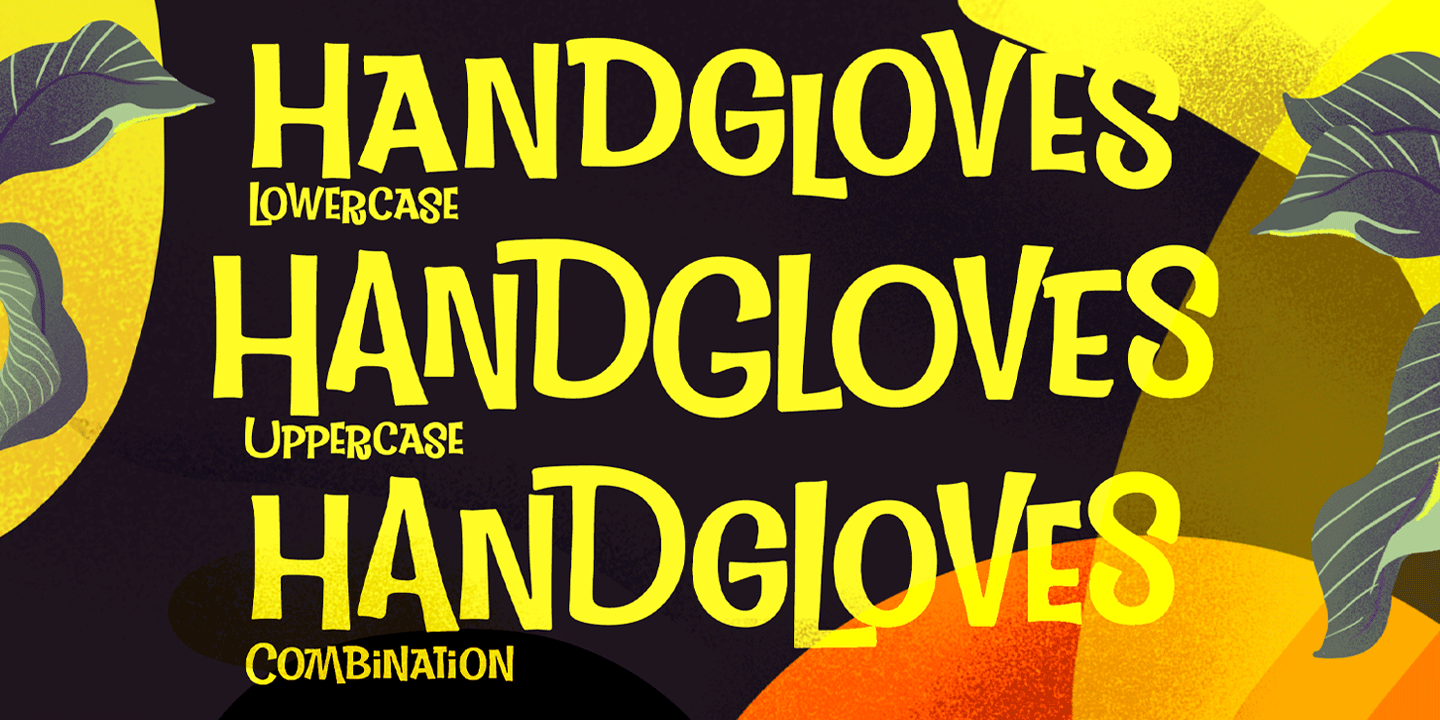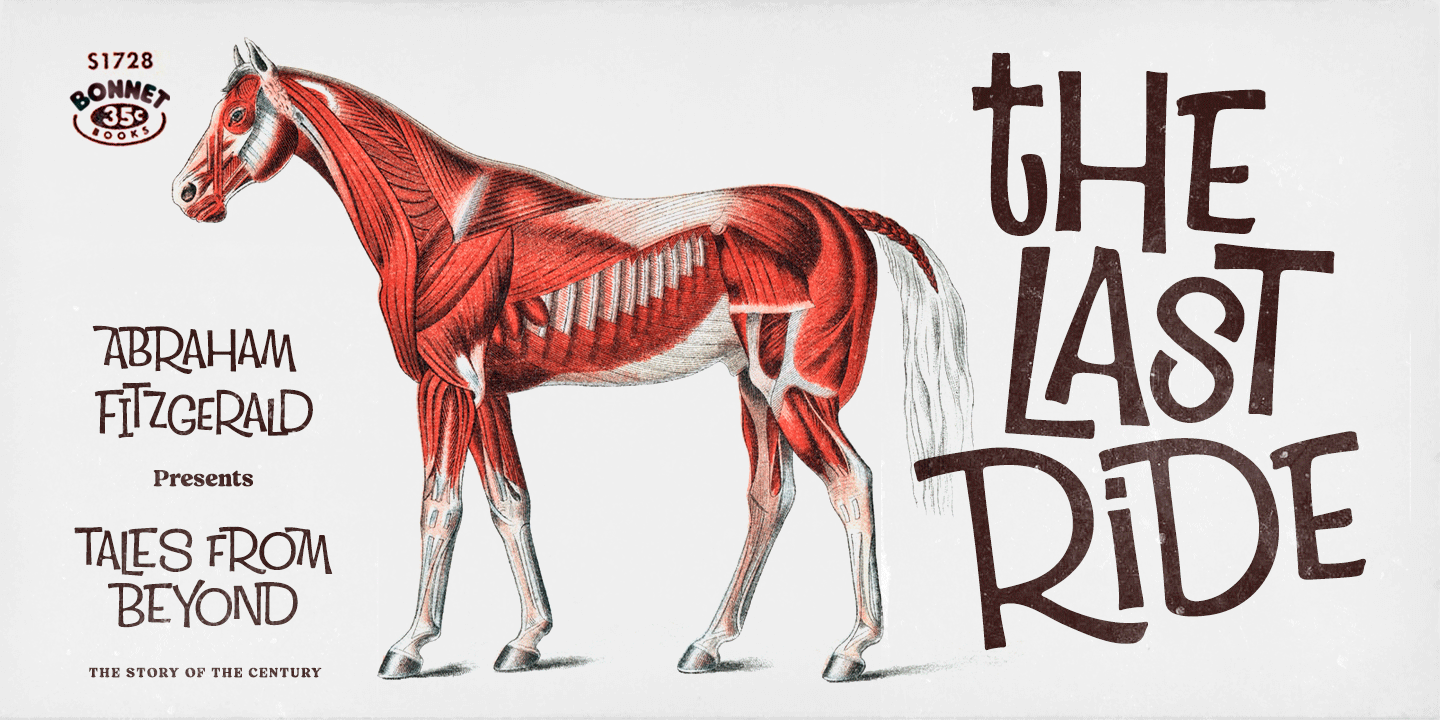
About Tropical Lounge
Tropical Lounge is an interlocking display typeface inspired by the hand lettering in 60s pulp magazine covers. It’s filled with a playful and vibrant 60s vibe, as well as modern OpenType features. Contextual Alternates switch the previous letter…